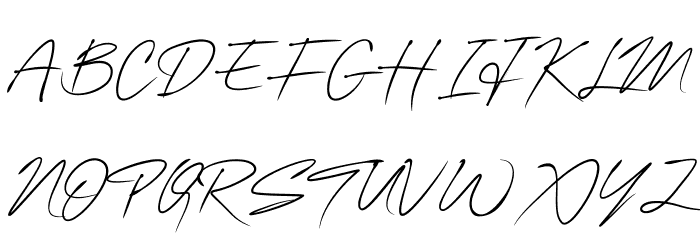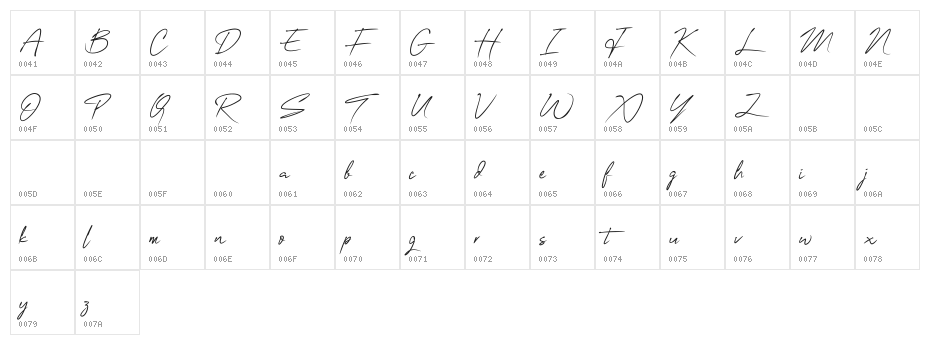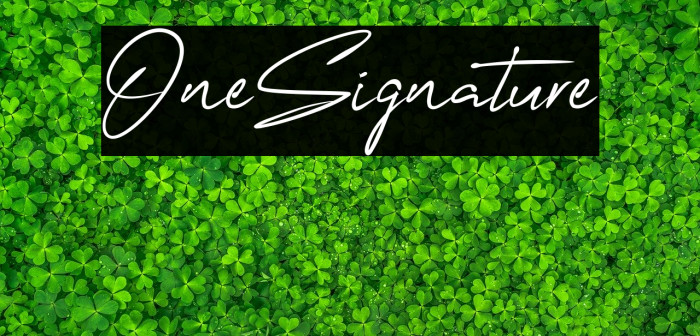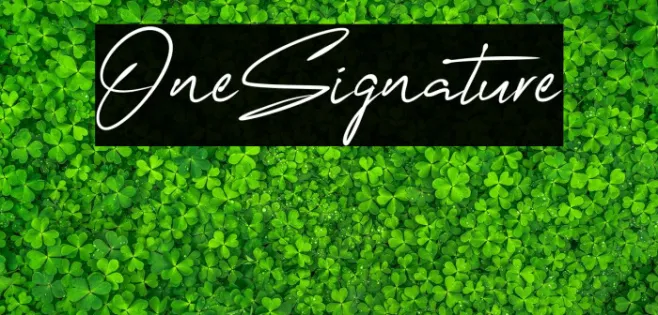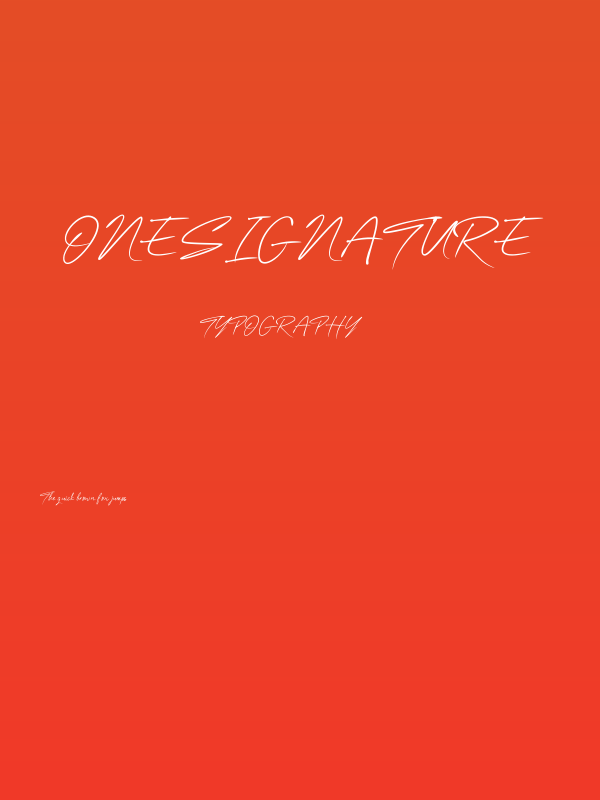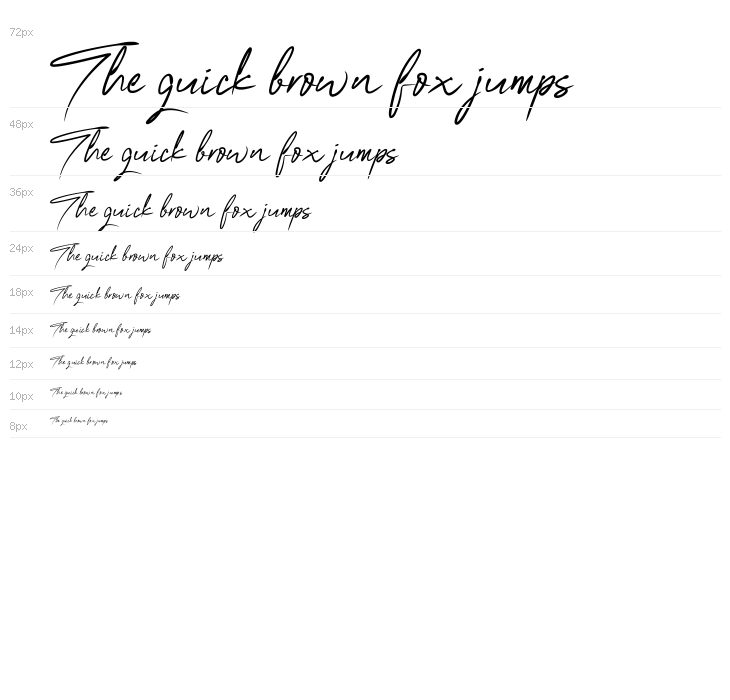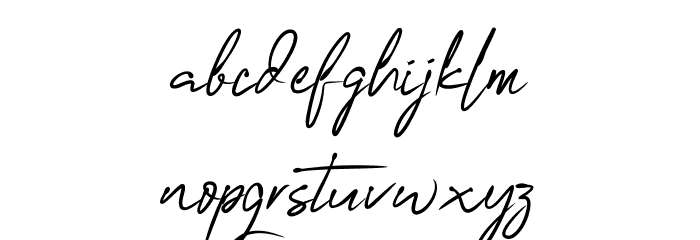
OneSignature Font
OneSignature Description
This font exudes a sophisticated and elegant handwritten style, characterized by its fluid and graceful strokes. The letters are connected in a cursive manner, giving it a natural flow that mimics the nuances of personal handwriting. The uppercase letters are slightly more angular, providing a striking contrast to the smoother, more rounded lowercase letters. This contrast adds a dynamic quality to the font, making it visually engaging. The overall appearance is both stylish and legible, suitable for a variety of design applications. The font's thin lines and delicate curves convey a sense of refinement and artistry, making it ideal for projects that require a touch of elegance and personalization.
| Overall Style | Elegant, Artistic |
| Proposed Projects | Ideal for wedding invitations, personal branding, elegant stationery, and artistic projects. |